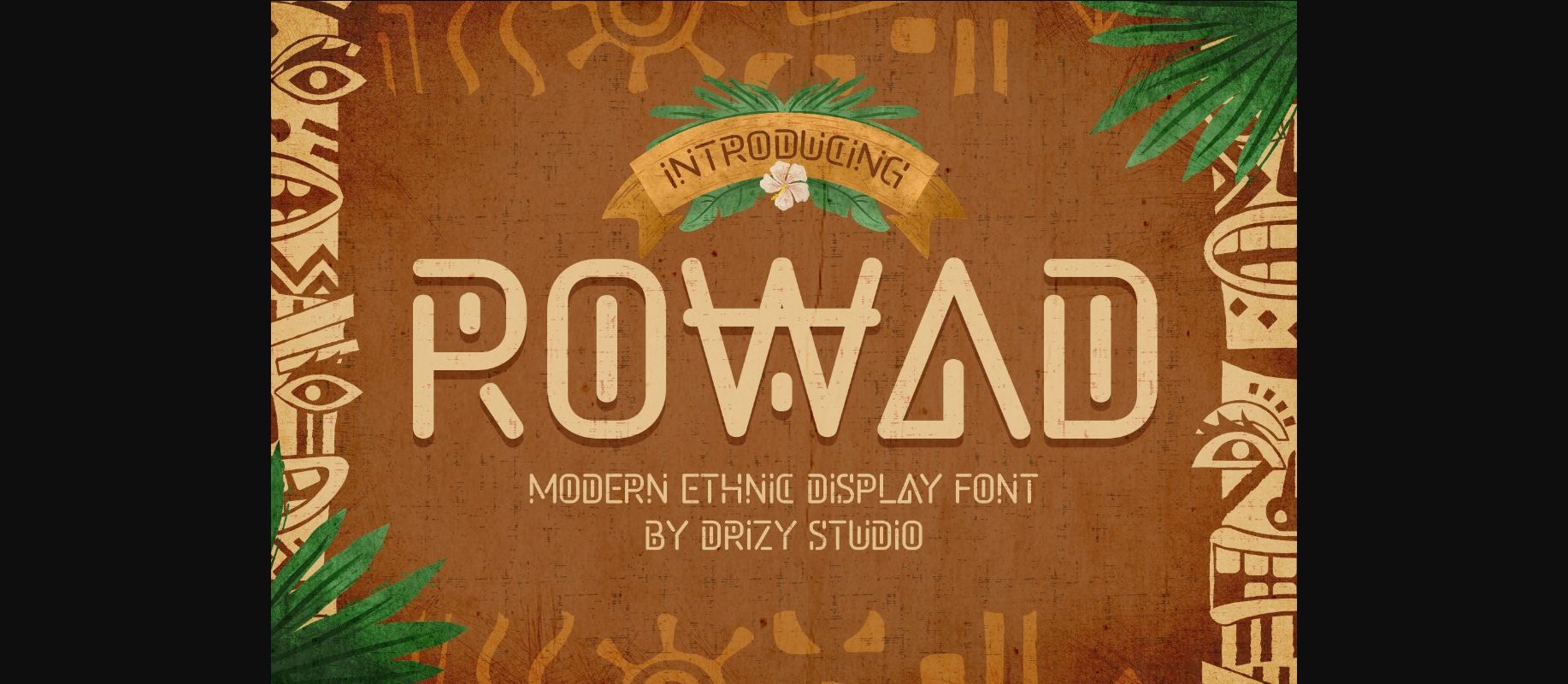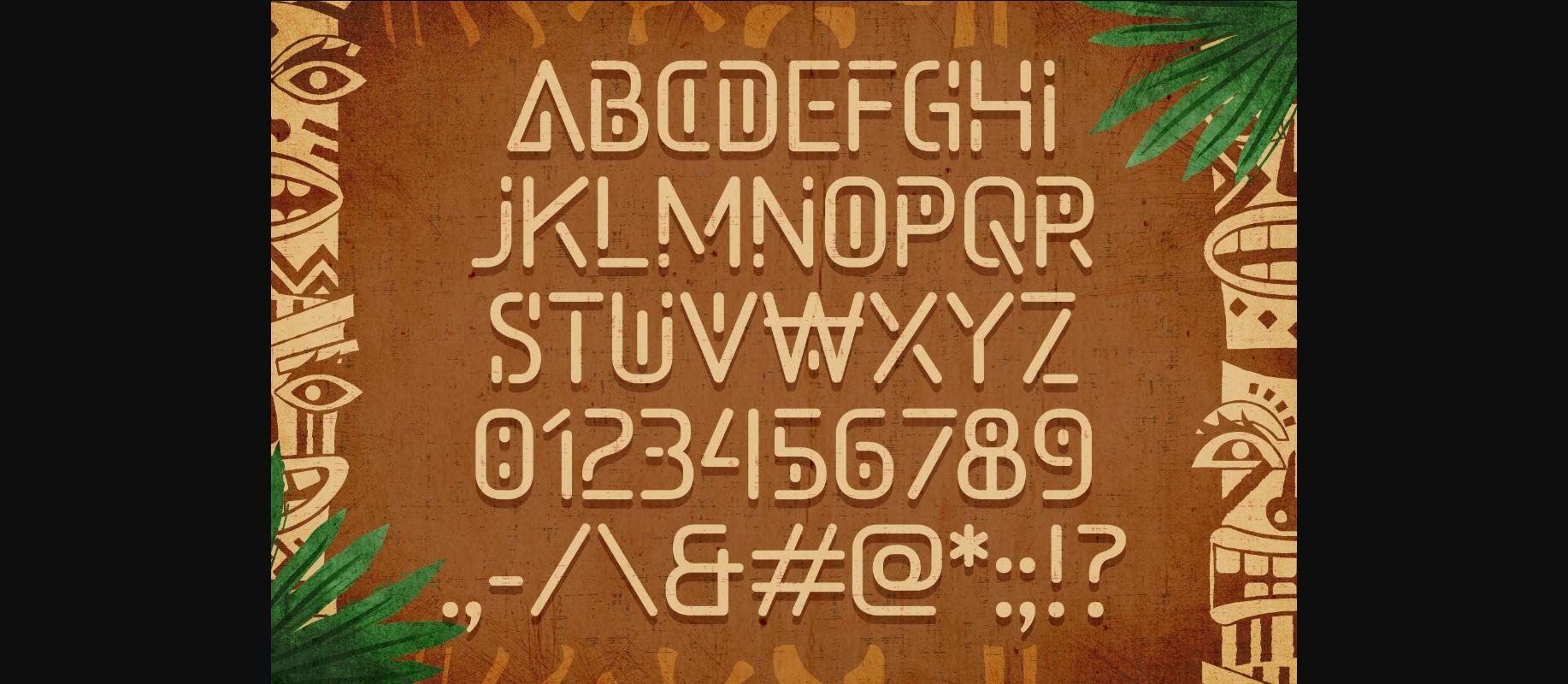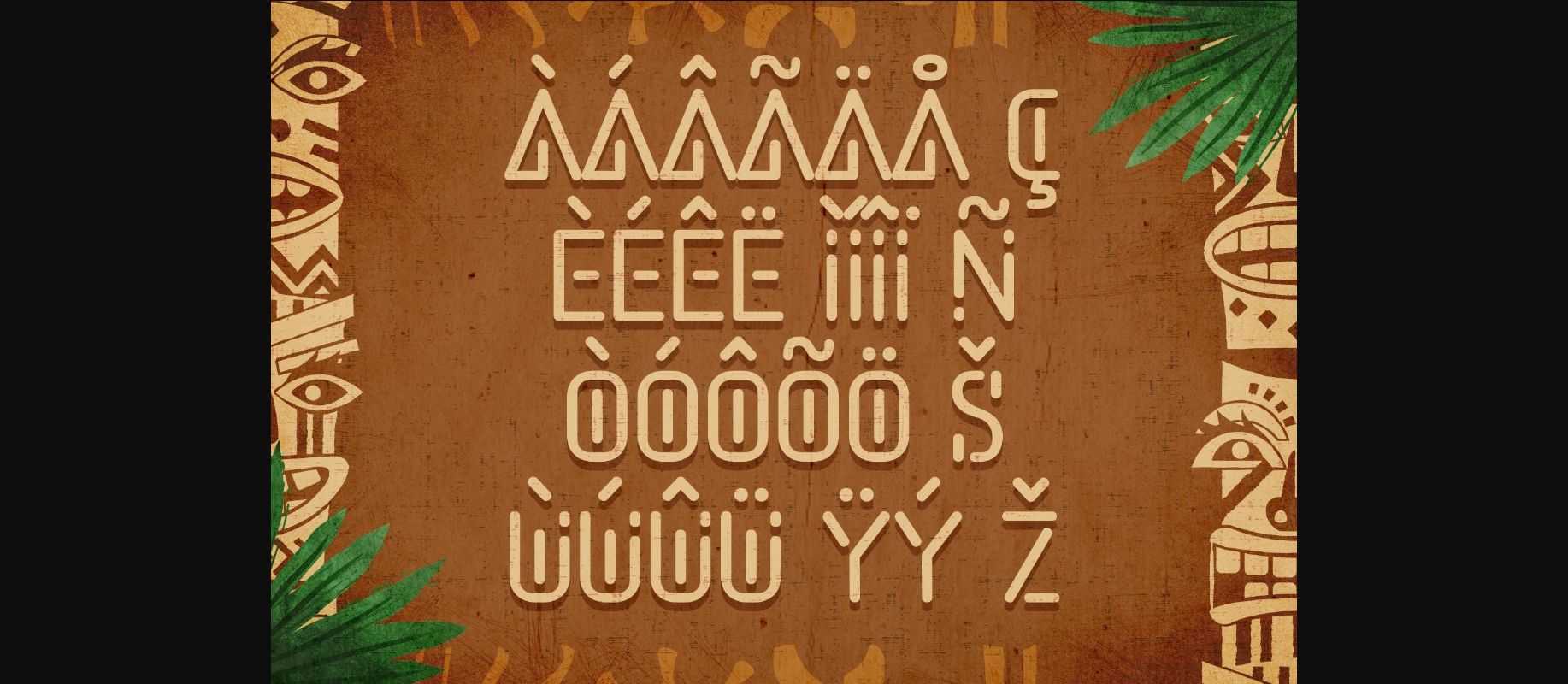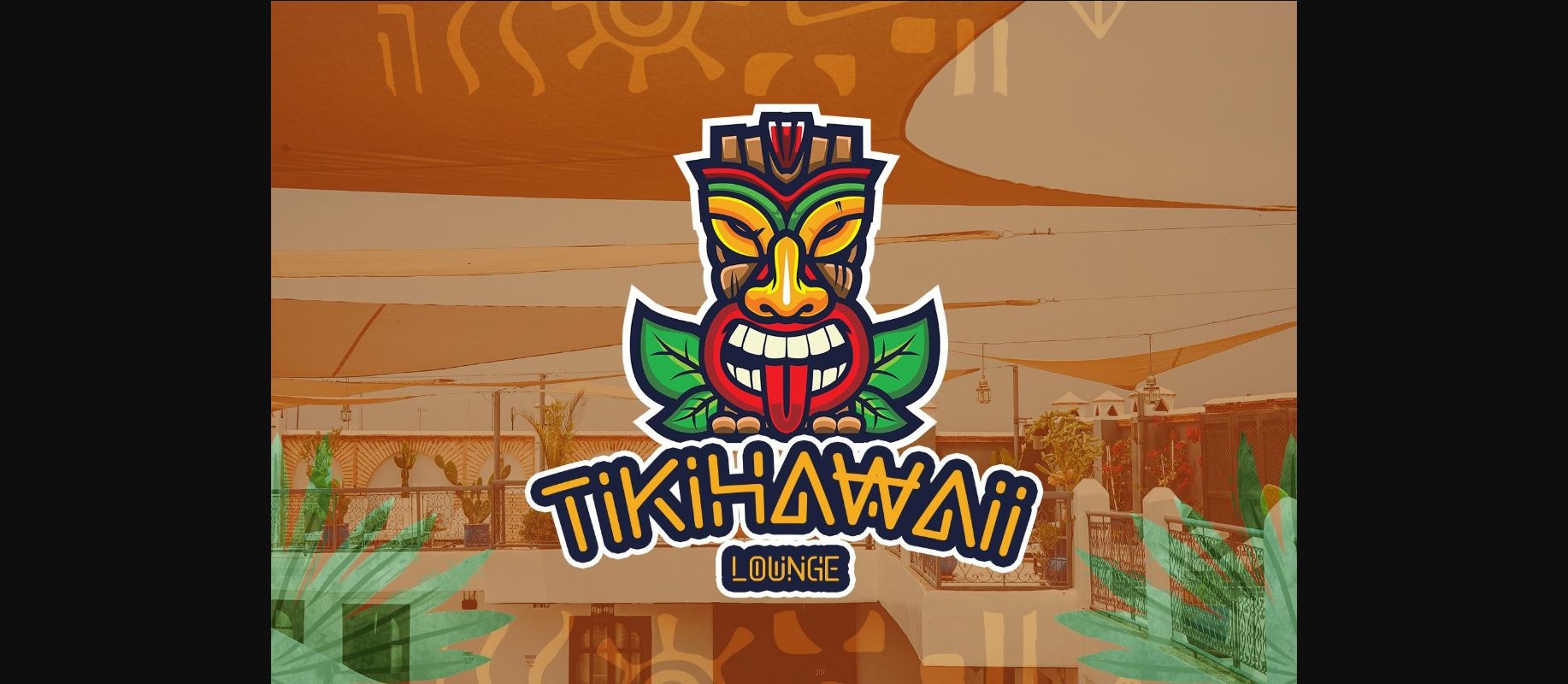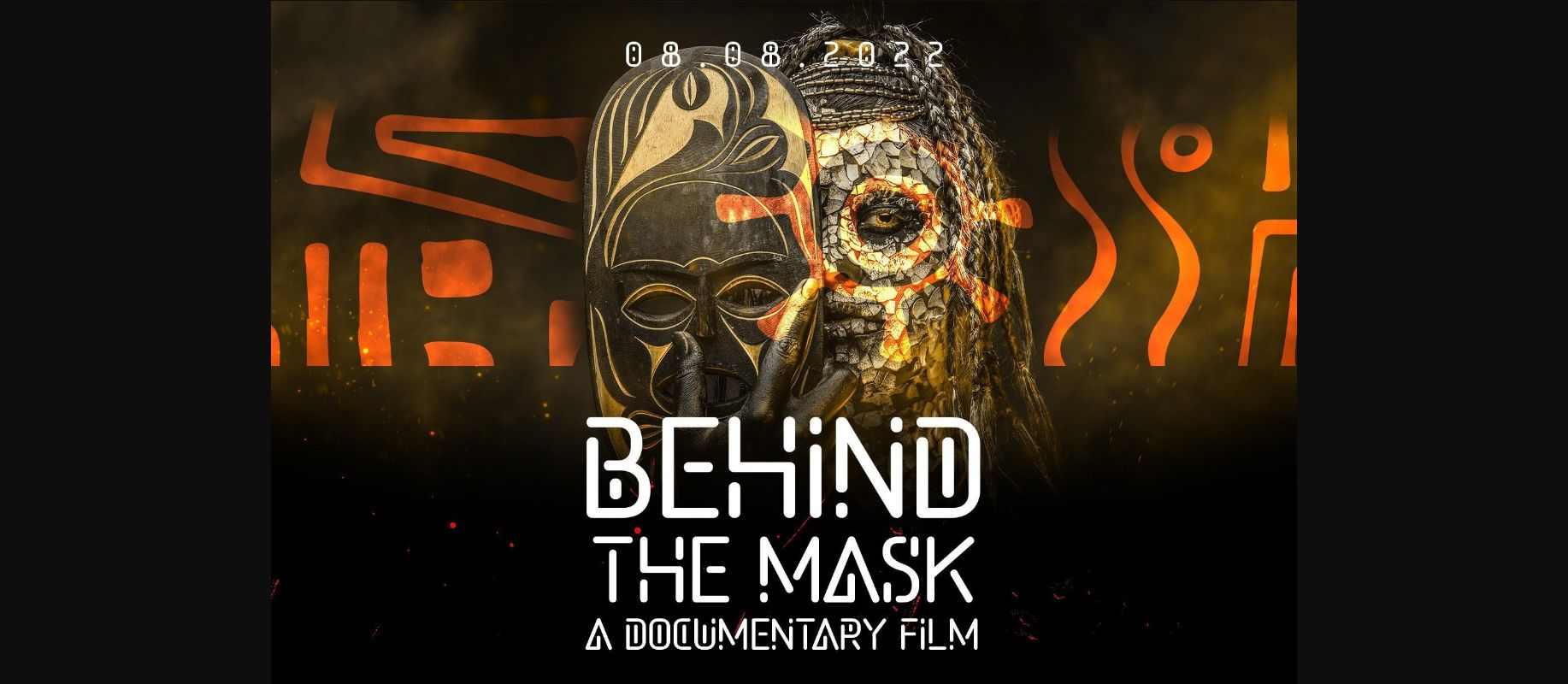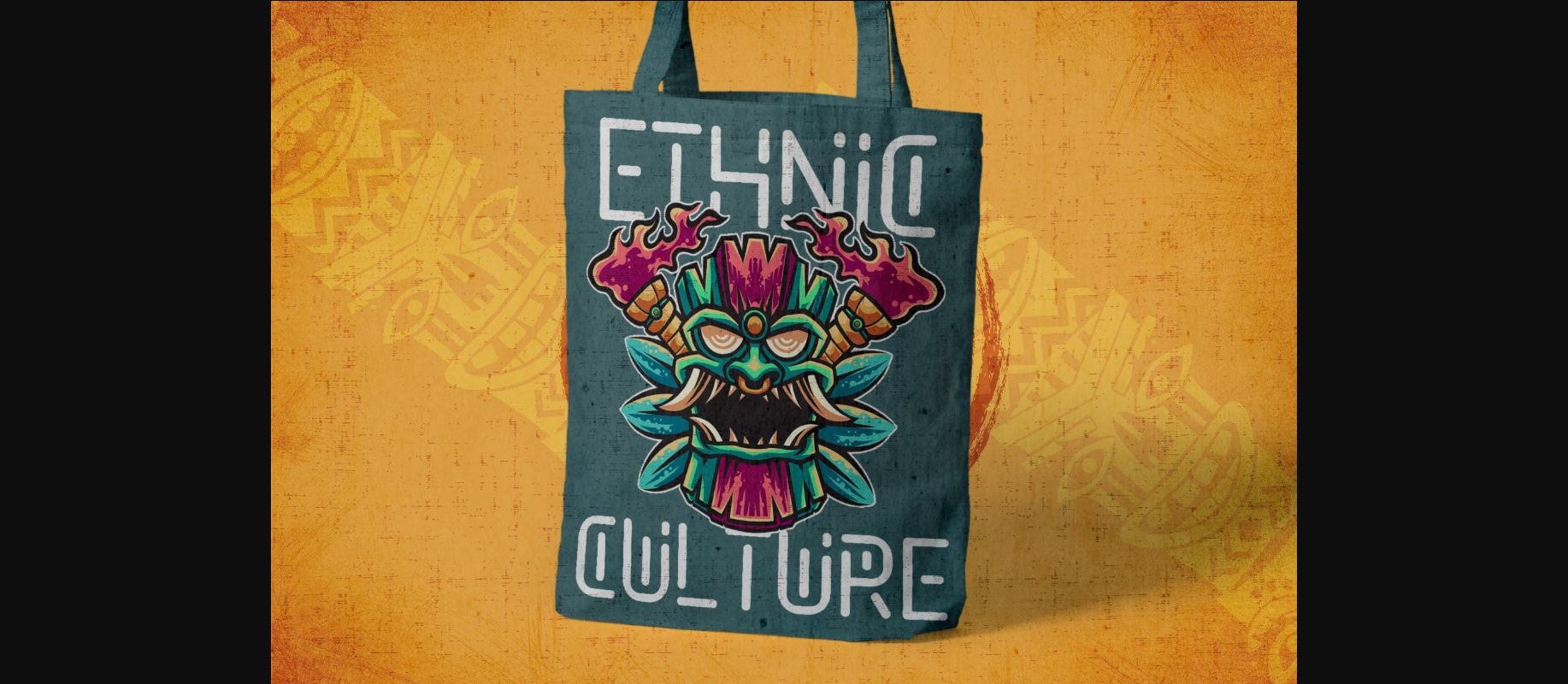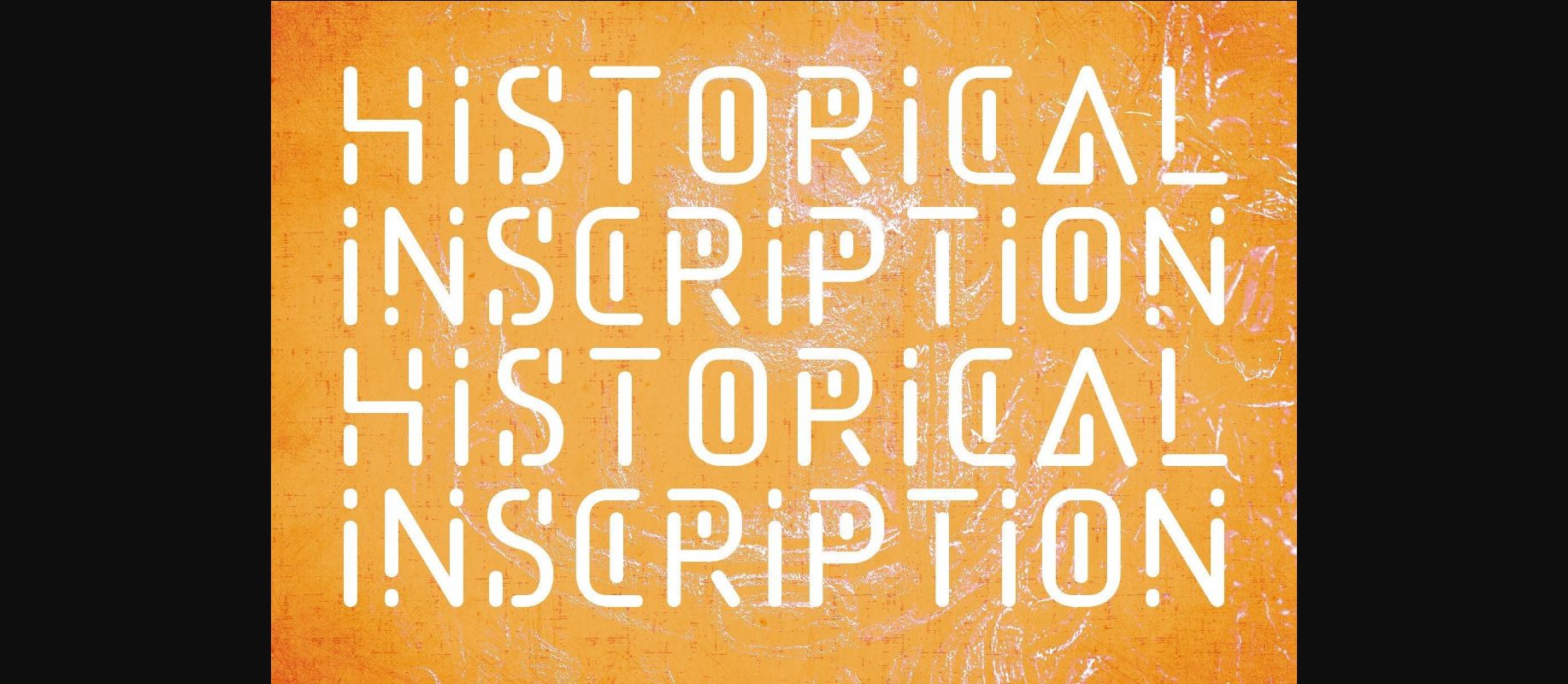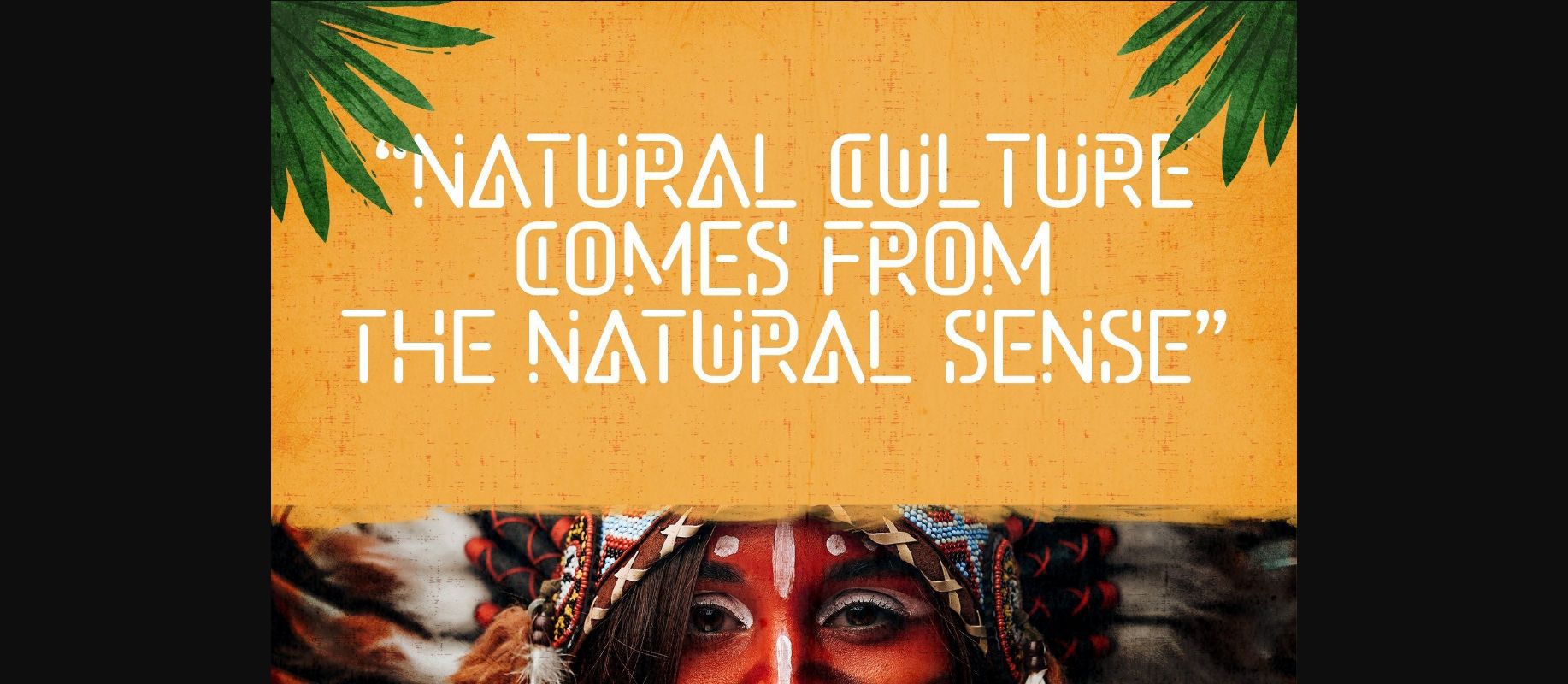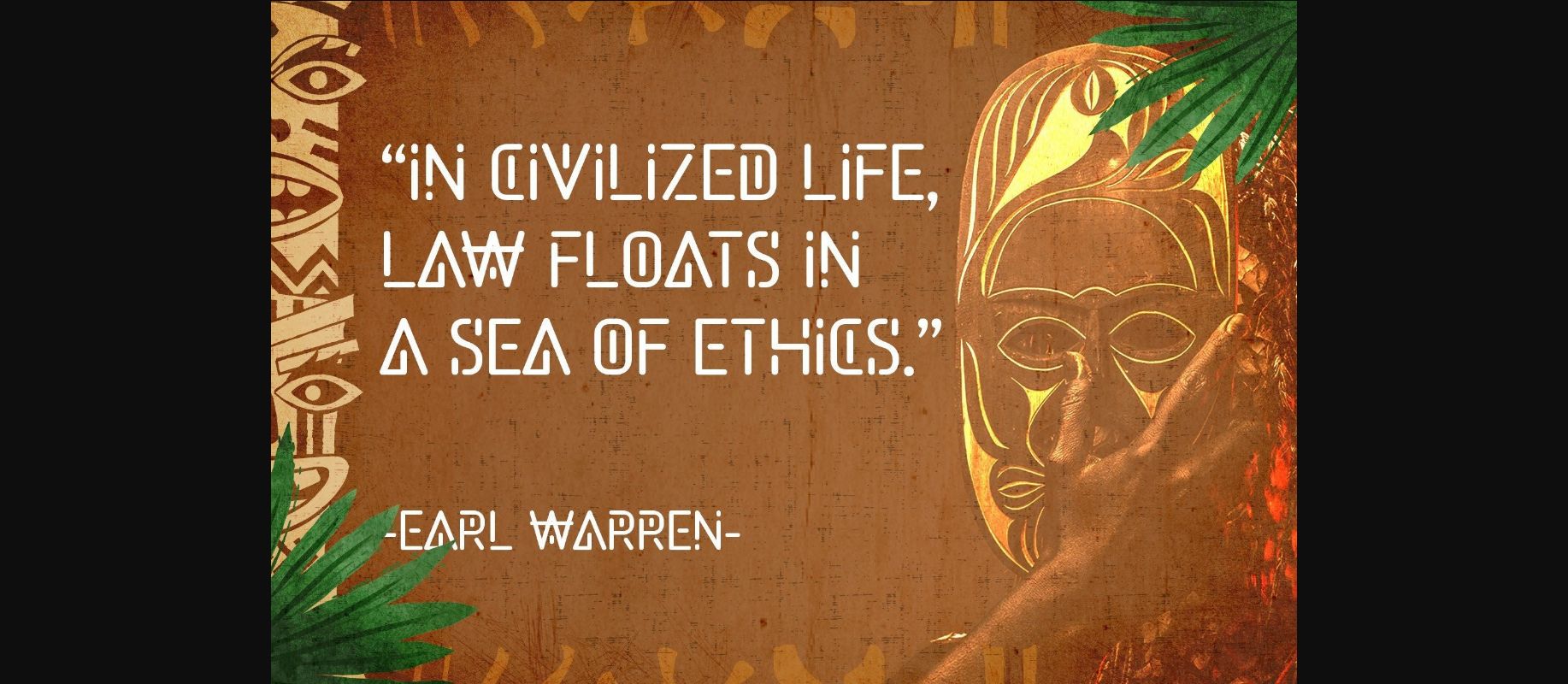
HomeDecorative FontsRowad Font Decorative Fonts Rowad Font FacebookXPinterestWhatsApp 1 of 11 ... Rowad Font Poster 2... Rowad Font Poster 3... Rowad Font Poster 4... Rowad Font Poster 5... Rowad Font Poster 6... Rowad Font Poster 7... Rowad Font Poster 8... Rowad Font Poster 9... Rowad Font Poster 10... Rowad Font Poster 11... About Rowad Font Rowad is a modern ethnic display font, offering all the basic styles you will need for a successful project. DOWNLOAD NOW People also explored Quarter Font Bluefish Font Romelio Font Bellowers Font Homade Light of Eye Font Sticker Font Shopie Font Butterworth Font 394 0 TagsRowadRowad Font Previous articleSo Cool FontNext articleDotted Font LEAVE A REPLY Cancel reply Comment: Please enter your comment! Name:* Please enter your name here Email:* You have entered an incorrect email address! Please enter your email address here Website: Save my name, email, and website in this browser for the next time I comment. Personal Use Free Feather Script Personal Use Free Read more about this font Jilliant Personal Use Free Read more about this font Sellena Brush Font Personal Use Free Read more about this font Special Day Personal Use Free Read more about this font BLOG Using Fonts in Digital Marketing: Tips to Strengthen Your Brand Identity In the realm of digital marketing, every visual element plays a crucial role in shaping a brand's identity, and fonts are no exception. The... The 10 Best Handwriting Fonts to Add Personality to Your Designs Best Fonts for YouTube Videos: Make Your Thumbnails Stand Out Modern Sans-Serif Fonts That Brands Love in 2025